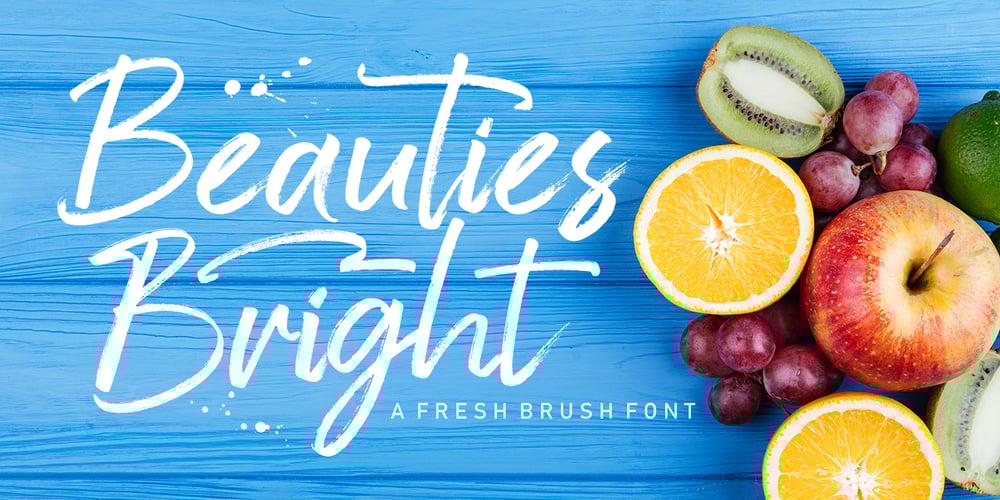
Beauties Bright
Beauties Bright font
Beauties Bright Font Family was designed by Muhammad Fajar and published by Lucky Type. Beauties Bright contains 2 styles and family package options. Beauties Bright allows you to make handwriting that looks fresher, both quickly and easily.Beauties Bright includes Stylistic Alternates for lowercase and uppercase characters. It is suitable for a variety of texts in your writing and also includes more than 20 swashes that allow your handwritten text to look more amazing.